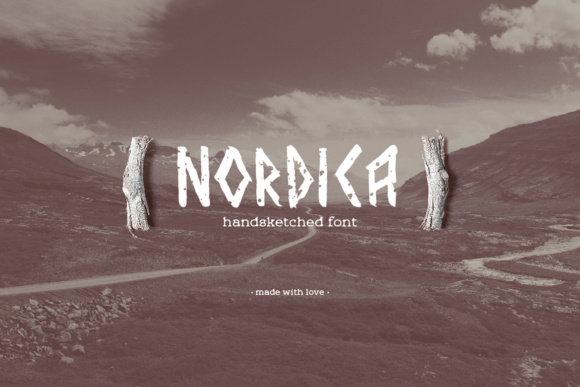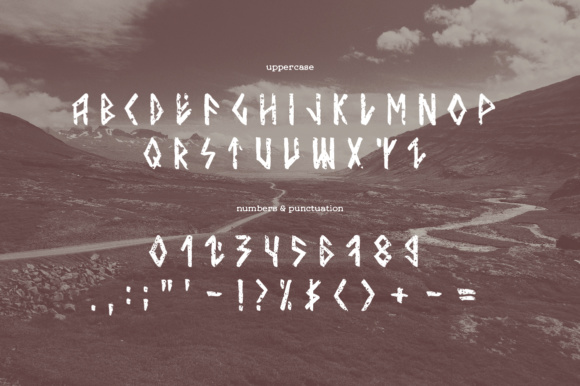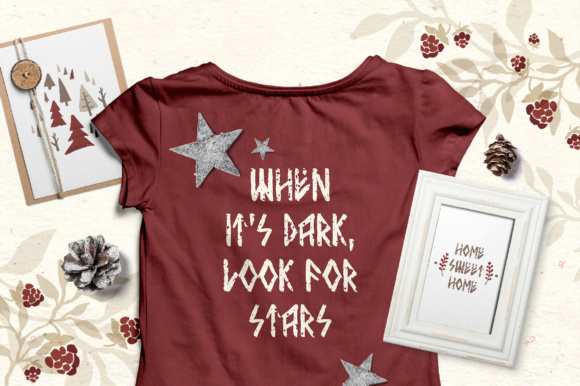
Nordica Font
About the Nordica Font
Experience the unique personality of Nordica Font, a font designed for impact. This beautiful runic style typeface will help you bring the Soul of the North into your design projects.
It’s the ideal font for giving a strong Nordic touch to your texts. Great for typography posters, apparel design, branding and logo, greeting cards and invitations.
Nordica’s bold, angular forms excel in headlines, short impactful phrases, and logo design, lending a strong, modern feel to branding projects emphasizing heritage or craftsmanship. It’s less suitable for body text or extended reading due to its weight and potentially low readability at smaller sizes. Avoid using it in user interfaces or applications requiring high legibility.
Consider pairing Nordica with a clean sans-serif like Helvetica Neue for a balanced contrast, or a more organic serif like Garamond for a sophisticated juxtaposition of old and new. For a bolder statement, a geometric sans-serif such as Futura might be considered. Script fonts should generally be avoided as they clash with Nordica’s powerful, linear structure.
The overall personality of Nordica is strong, confident, and slightly austere, making it ideal for brands projecting quality, authenticity, and a connection to Scandinavian design principles. Avoid pairing this font with styles that are overly playful or whimsical.